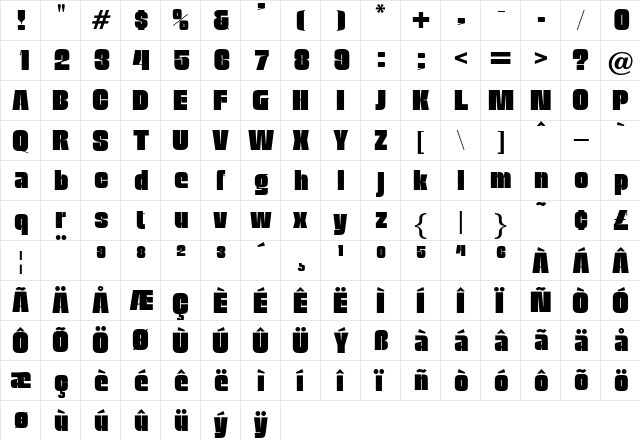
Neil Bold
Design Context for Neil Typeface
Neil offers clean, dependable letterforms without strong stylistic allegiance, making it a practical choice for designers who need flexibility. Its bold stroke weight gives it real presence on the page.